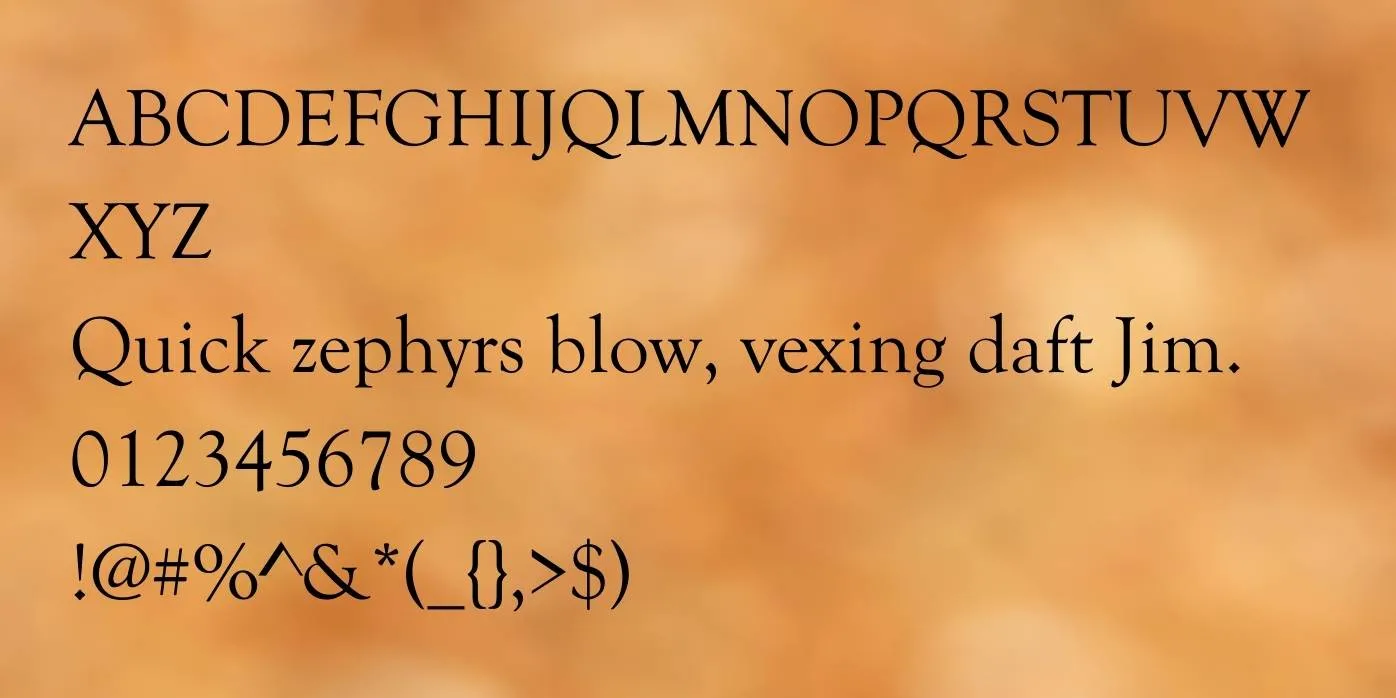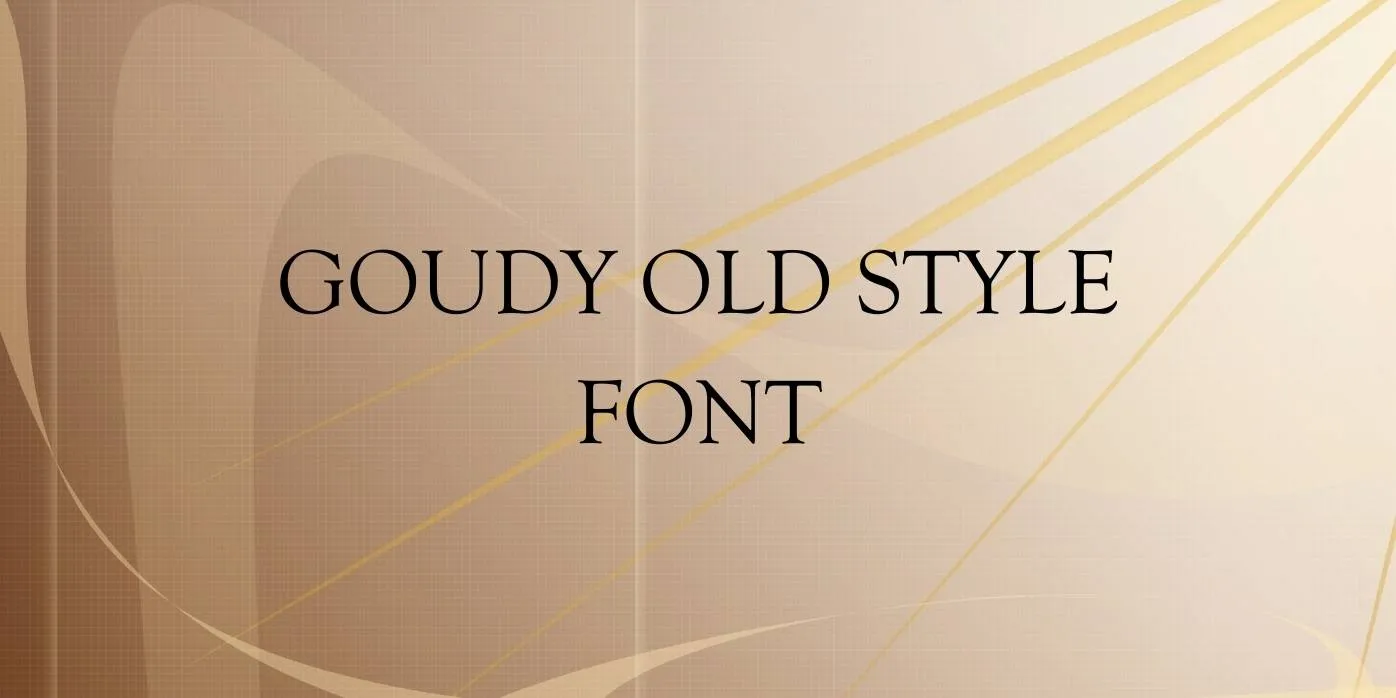
Goudy Old Style Font
Introducing the Goudy Old Style Font that is the most famous and ancient typeface. The designer of this typeface is Frederic Goudy and this beautiful typeface belongs to a Serif typeface family. This typeface gives feelings about nostalgia. The font family has TTF features and it comes in different weights like Regular, Bold, and Italic and all the weights have Uppercase & Lowercase Letters, Numbers and useful symbols, etc.
This is the old-style font that is very great for many logos and display projects. Its Characters like the old style that provide the user a distinct advantage and make your design attractive. The font characters have a little bit of round corners with simplicity touch. In the old ages, such characters were used a lot.
People used to write their letters and emails with this type of writing and these characters will be very popular in Europe.